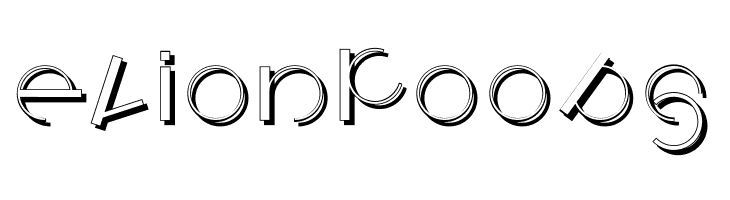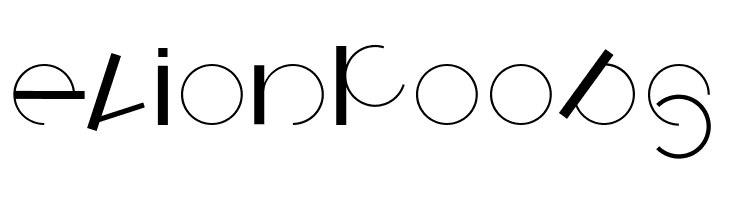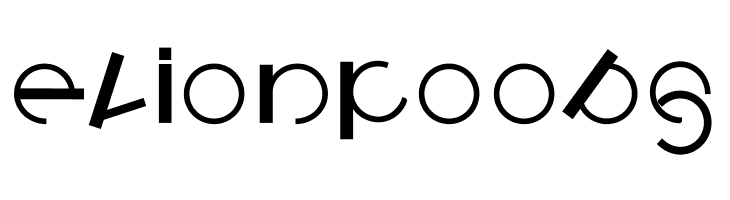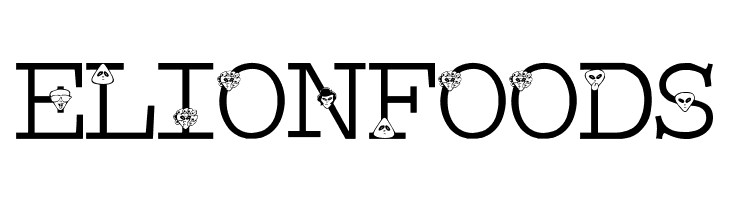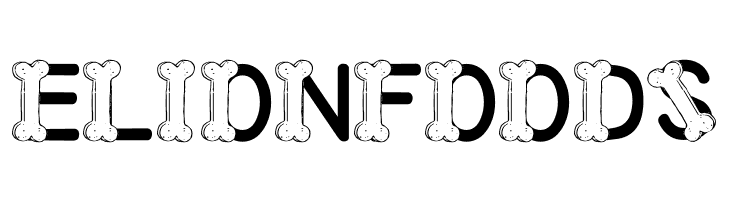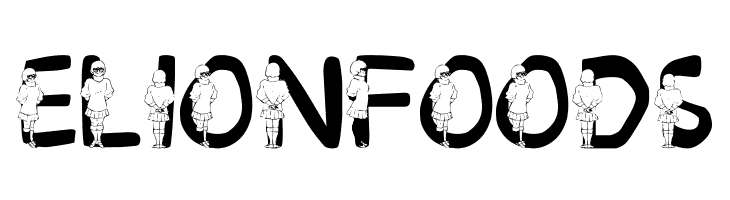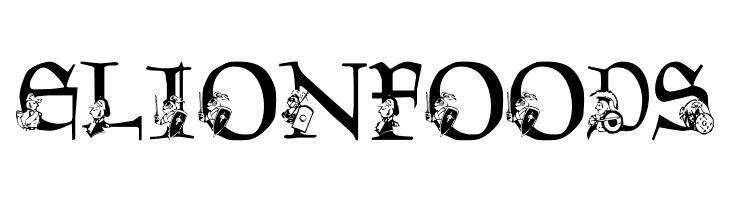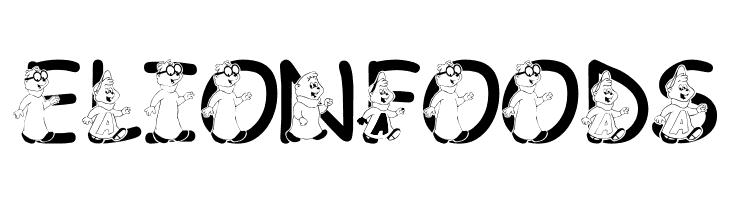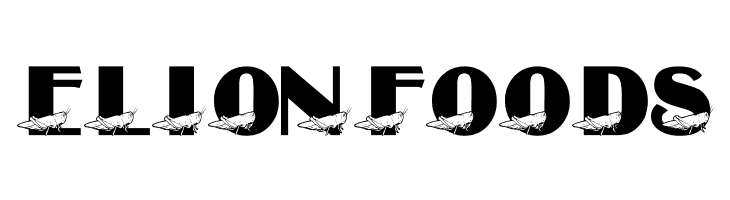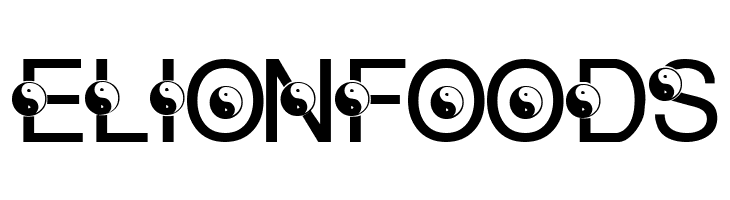
• LMS The Truth Is Out There
A playful serif font with alien-themed decorative elements.
• LMS This Font Is For The Dogs
A playful font with bone-shaped characters, perfect for pet-themed designs.
• LMS Velma
A whimsical, illustrated font with bold, rounded characters featuring integrated character designs.
• LMS Warrior Mascot
A decorative font with warrior-themed illustrations integrated into each character.
• LMS We're The Chipmunks
A playful font with cartoon characters integrated into bold, rounded letters.
• LMS Yes Young Grasshopper
A bold, whimsical font with grasshopper illustrations on each letter.
• LMS Ying & Yang
A bold, modern font with integrated yin-yang symbols for a unique, thematic style.
• Logomatique
A modern, geometric font with bold lines and unique letterforms.
• LogomatiqueBold
A bold, geometric font with modern and artistic elements.
• LogomatiqueShadow
A modern, geometric font with a shadow effect for a 3D look.